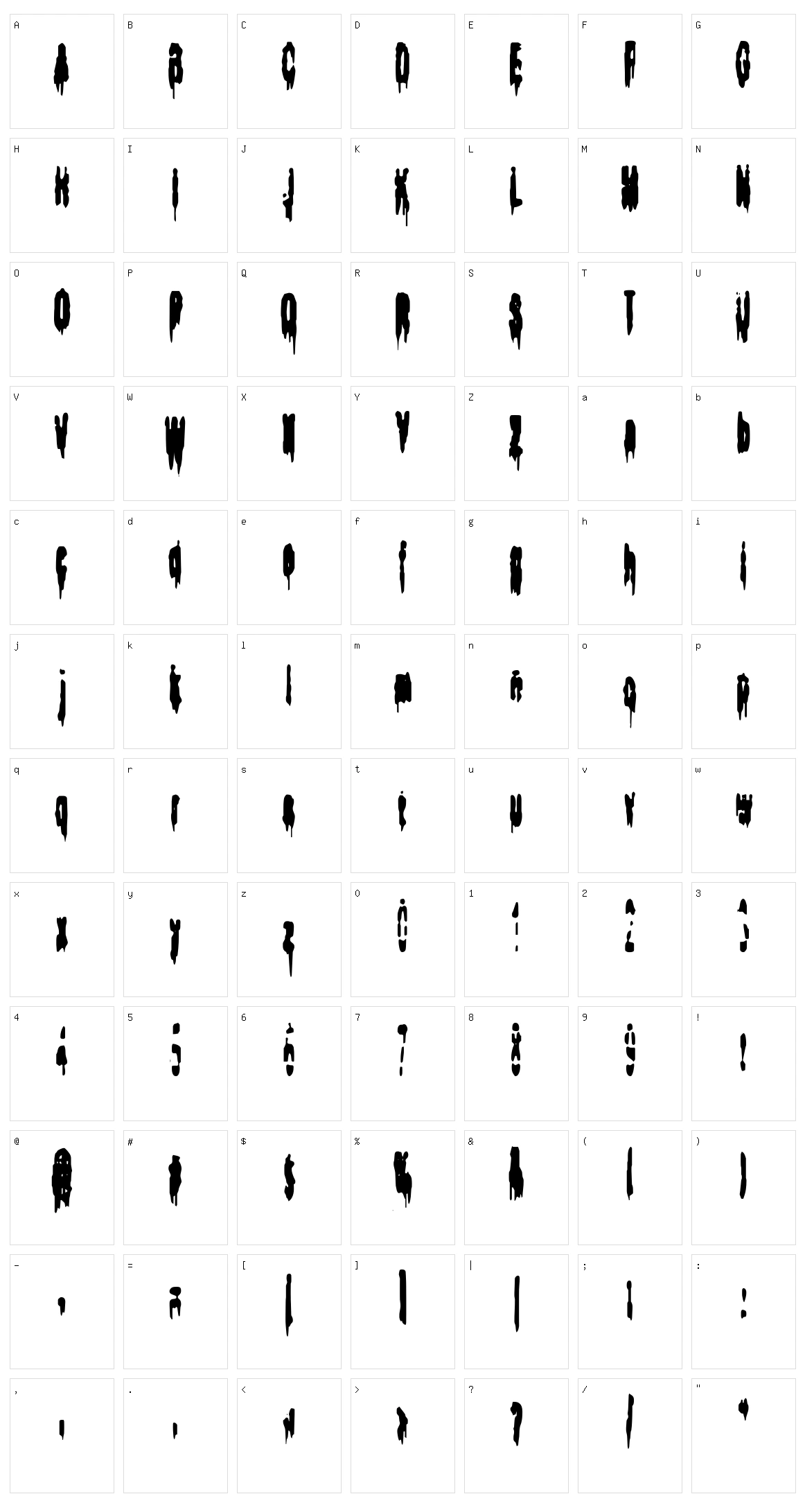
The free font Bodybag is carefully designed by Mr.Fisk Fonts, showcasing a thoughtful balance of creativity and usability and falls under the Horror font style. When you download the ZIP file, it contains only 20.53 KB of font files, making it lightweight and quick to download. Please review the license details below to understand permitted usage and distribution rights. If license information is not available, we recommend using this font for personal projects only or contacting the author directly for commercial usage permissions.